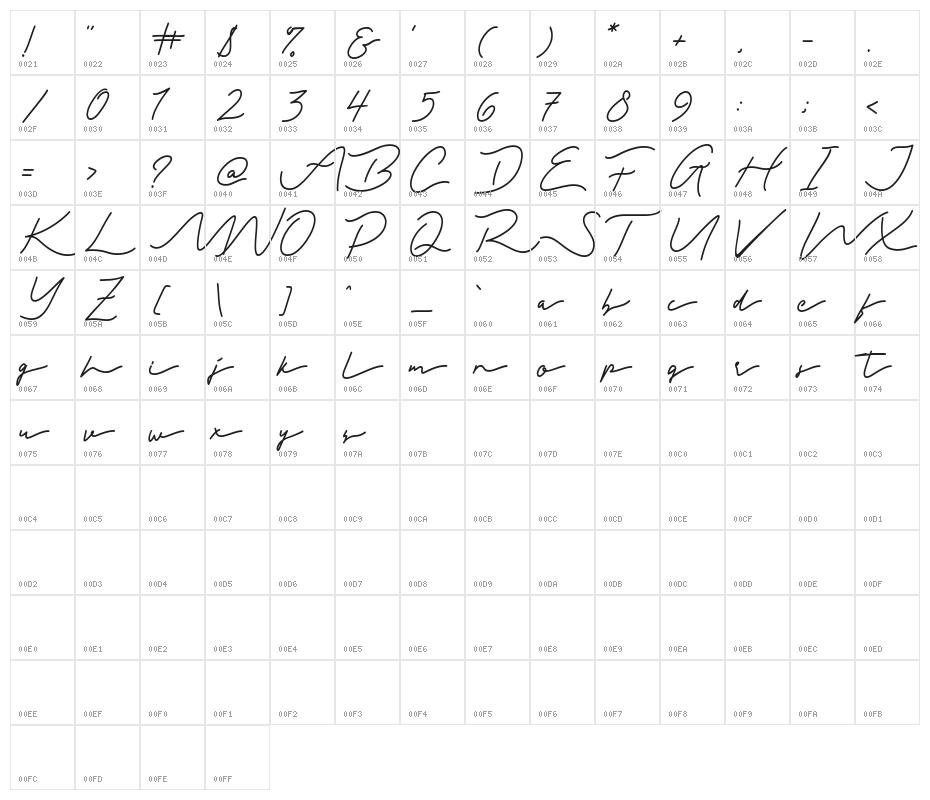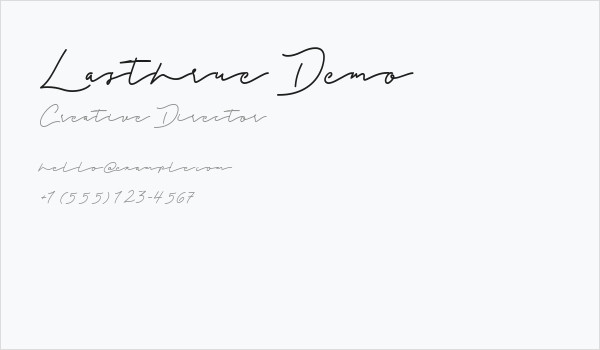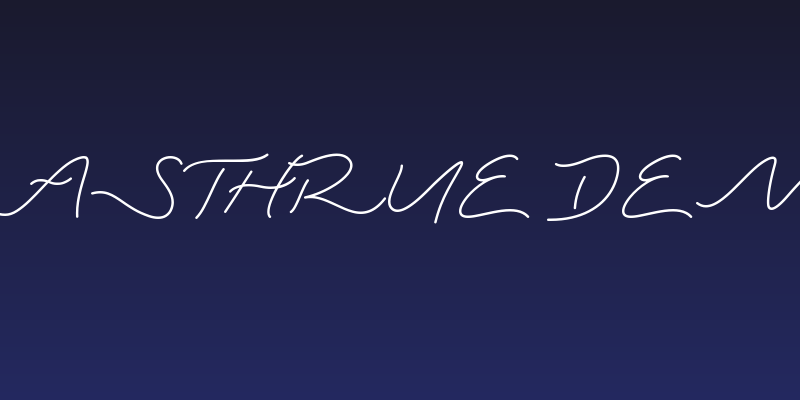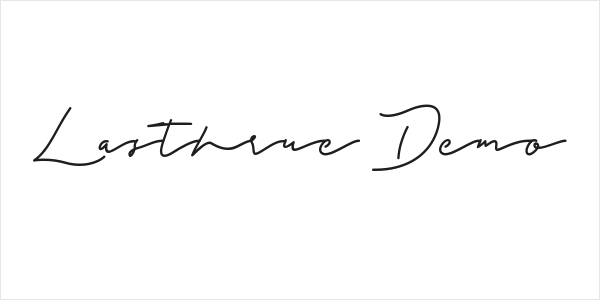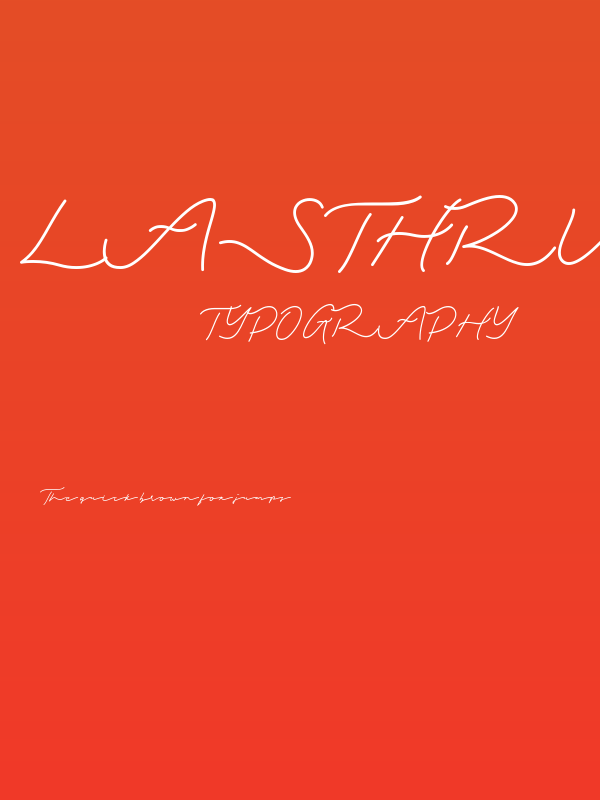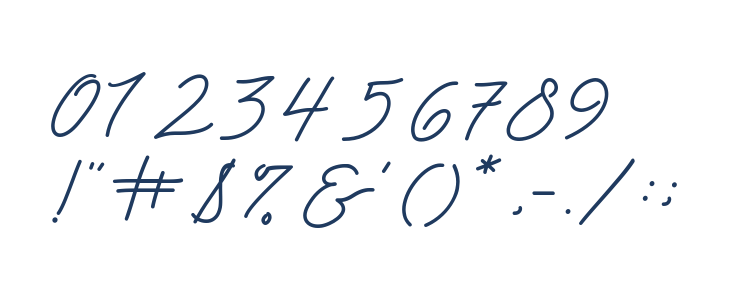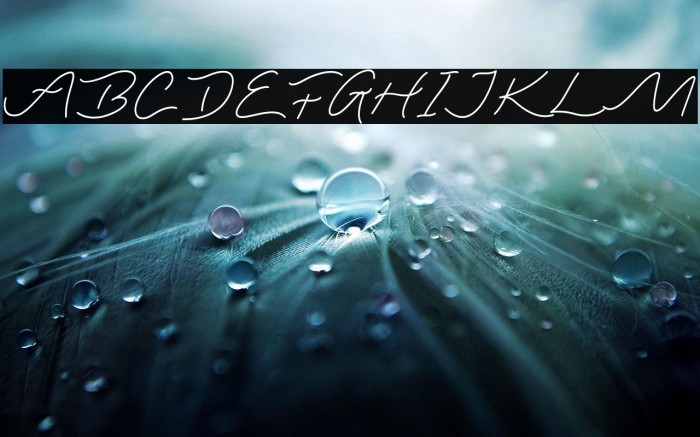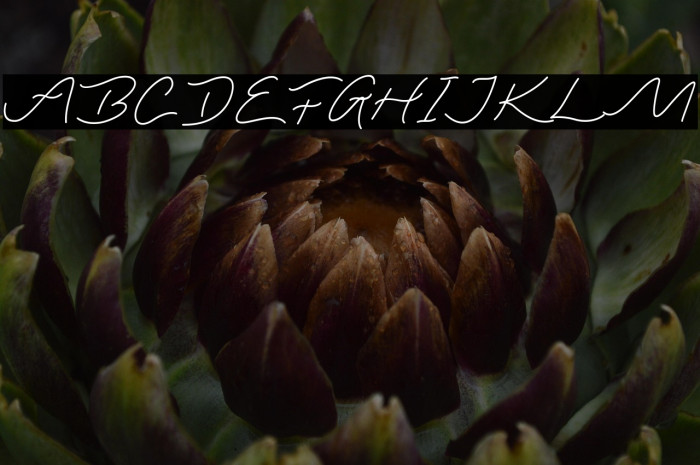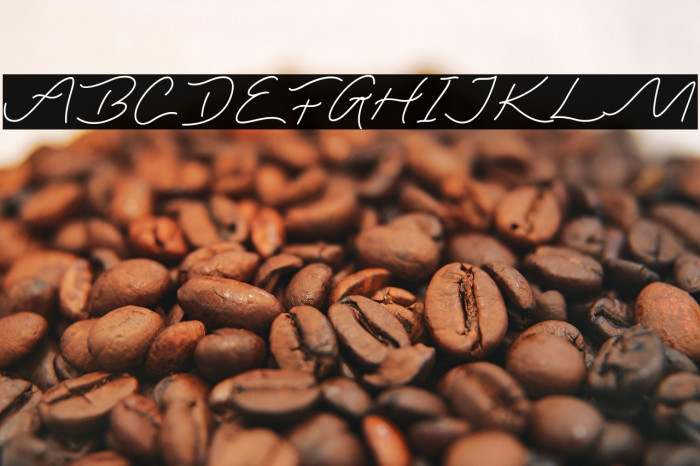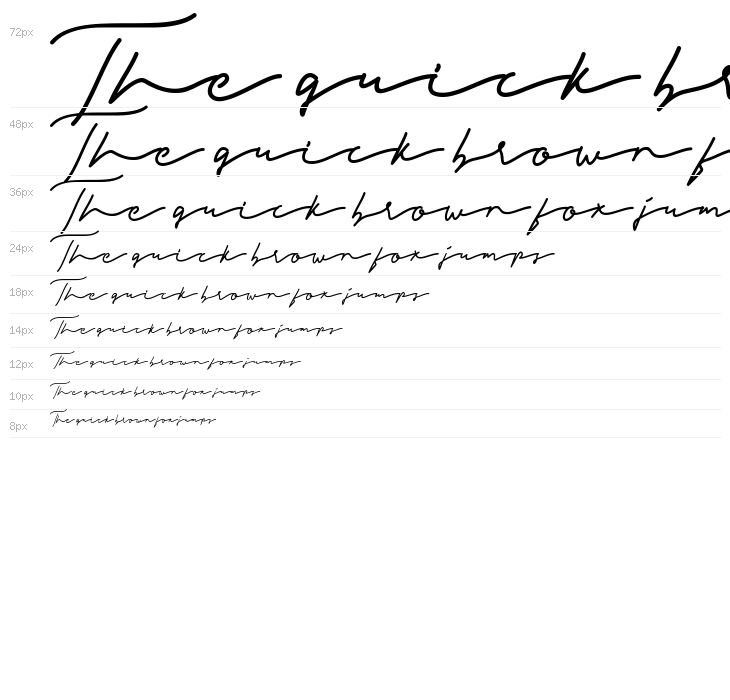
Lasthrue Demo Font
Lasthrue Demo Description
This font features a fluid, cursive style that mimics natural handwriting. The uppercase letters are elegantly connected, while the lowercase letters maintain a consistent flow, enhancing readability. The numerals are distinct and slightly more upright, providing a clear contrast to the letters. Special characters are designed with the same flowing strokes, ensuring a cohesive look across all elements. The overall appearance is sophisticated and artistic, making it suitable for projects that require a personal touch.